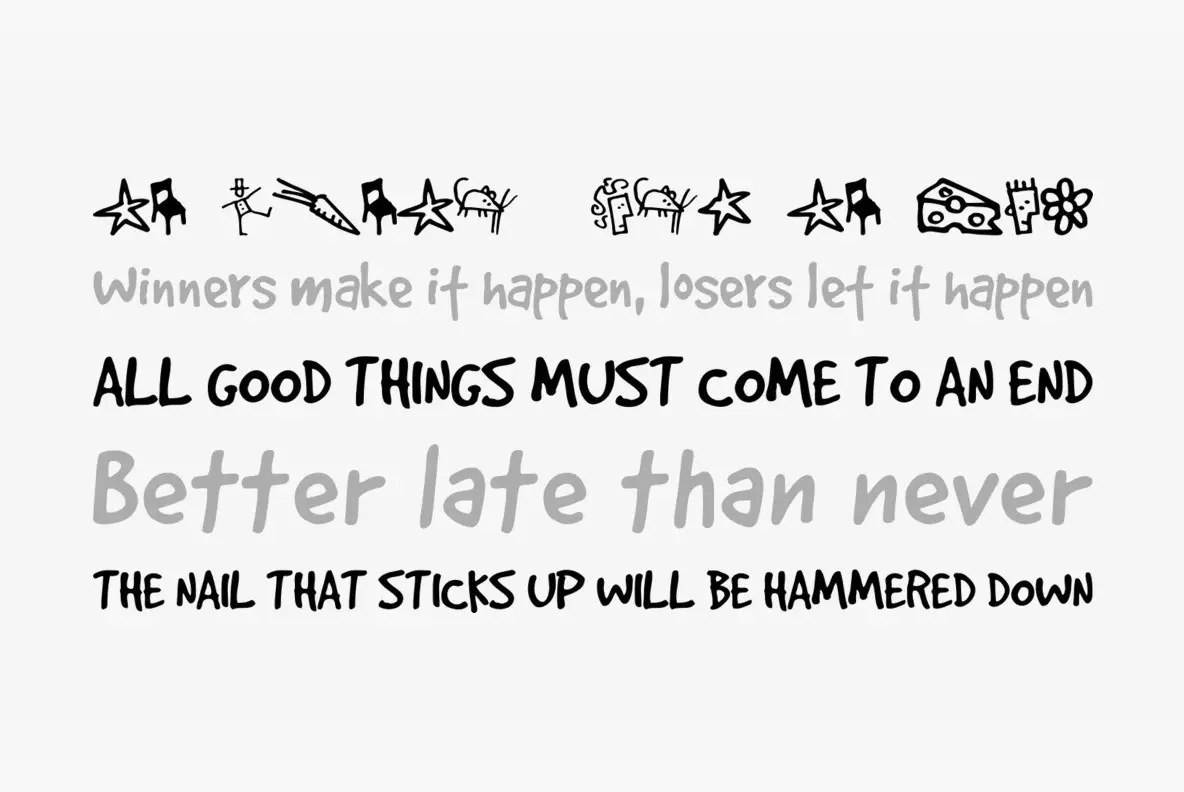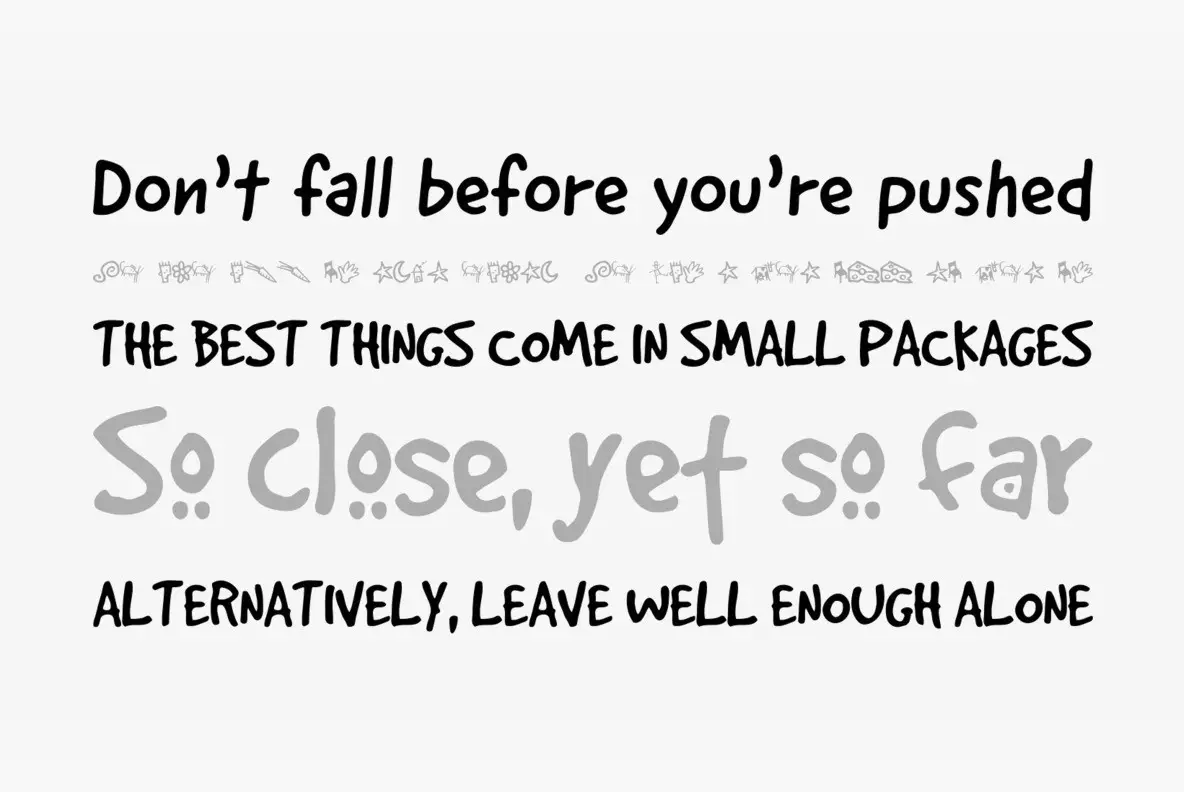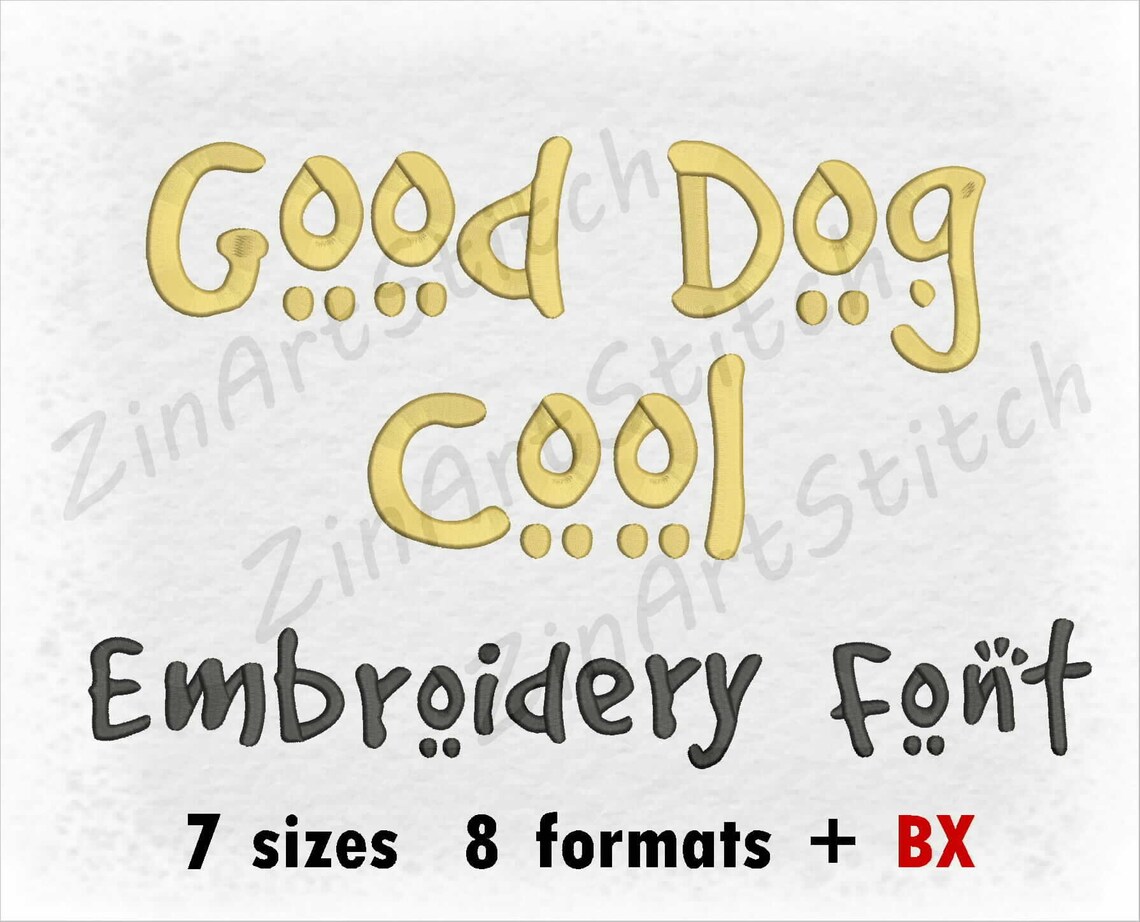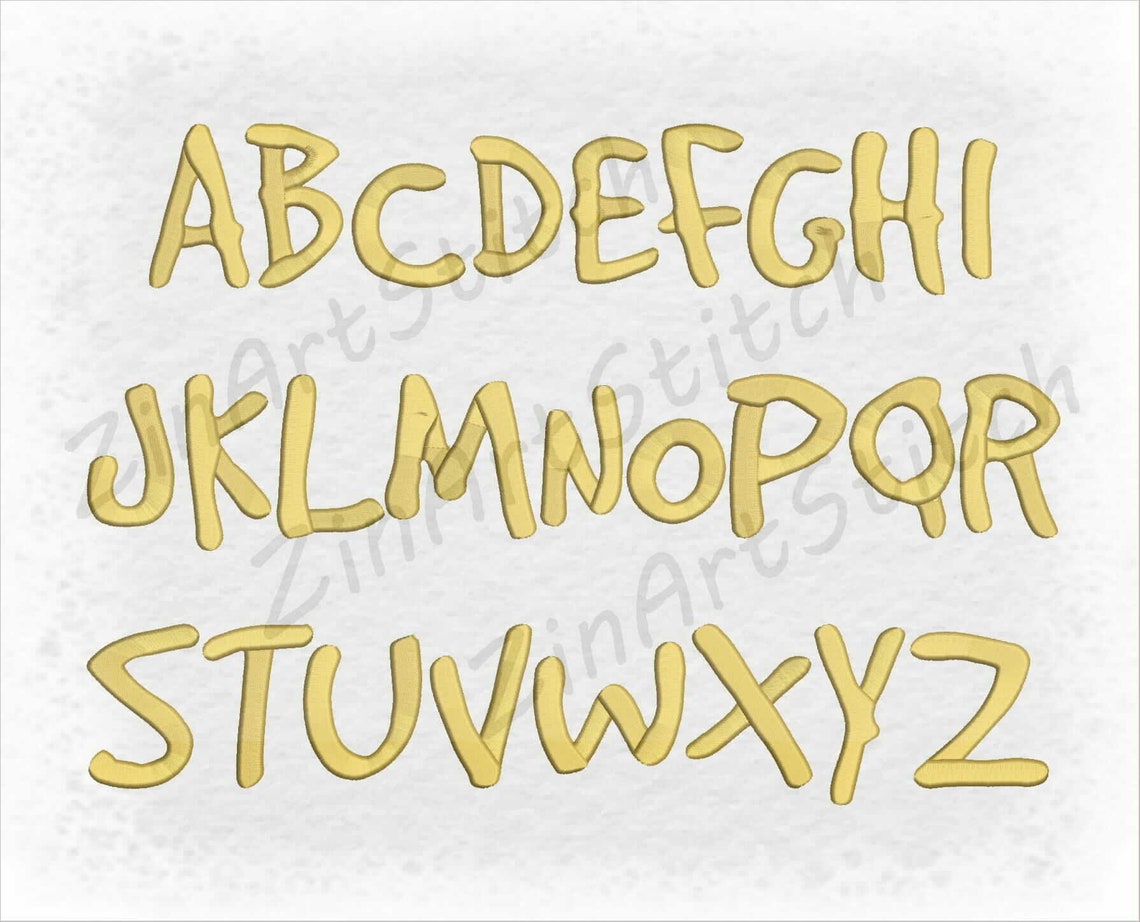
Good Dog New Version 1.00, SI, December 8, 2008, initial release Font Good Dog Cool Font Installable on pc, mac, linux, ios, and android platforms. Good dog cool is a handwritten type font that can be used on any device such as pc, mac, linux, ios and android. Gooddog cool is licensed under the following terms: Good dog à by fonthead design. Discover the free gooddog cool font at free font download ! Discover the free. Good Dog Cool Font.
GoodDog Cool Font Download Free for Desktop & font Good Dog Cool Font Installable on pc, mac, linux, ios, and android platforms. Discover the free good dog cool font at free font download ! Good dog cool is a handwritten type font that can be used on any device such as pc, mac, linux, ios and android. Gooddog cool is licensed under the following terms: Thousands of designers (famous or not) use the. Good Dog Cool Font.
Good Dog Cool Font download free Good Dog Cool Font Gooddog cool was developed fonthead design. Installable on pc, mac, linux, ios, and android platforms. Good dog cool font download is available free from fontget. Good dog cool is a handwritten type font that can be used on any device such as pc, mac, linux, ios and android. Discover the free gooddog cool font at free font download ! The. Good Dog Cool Font.